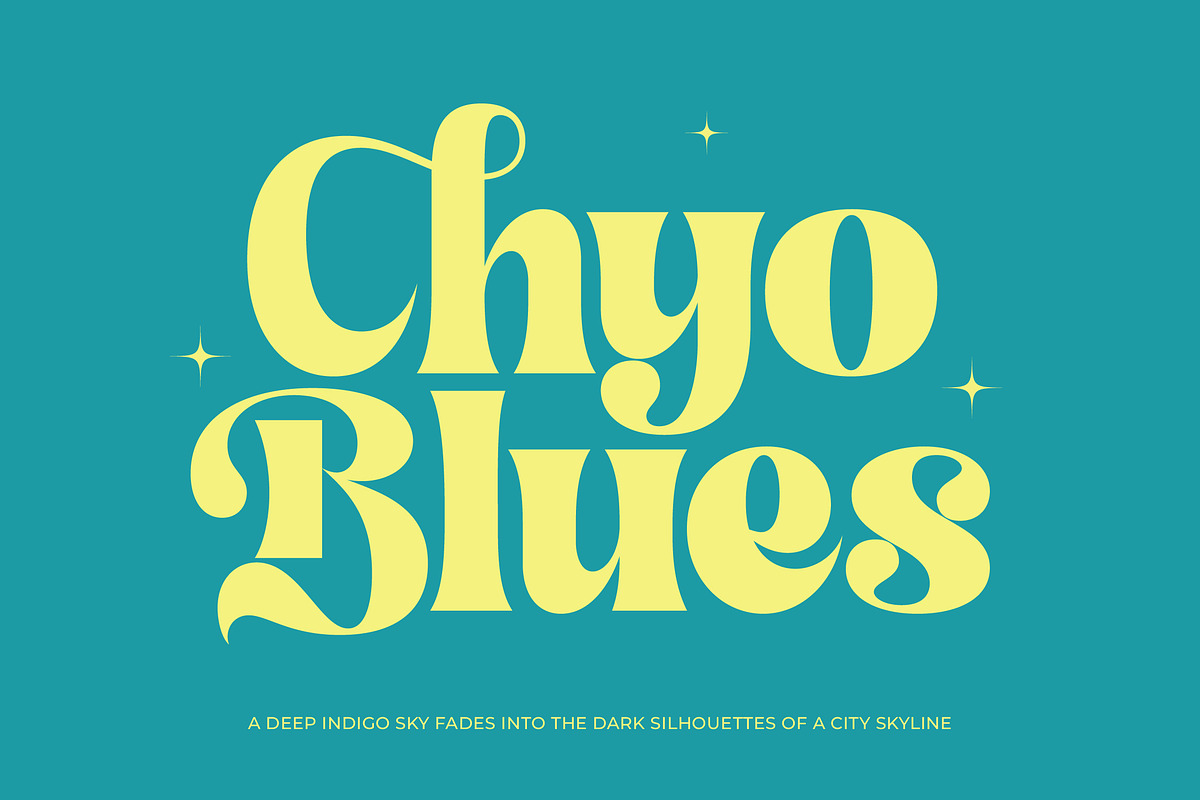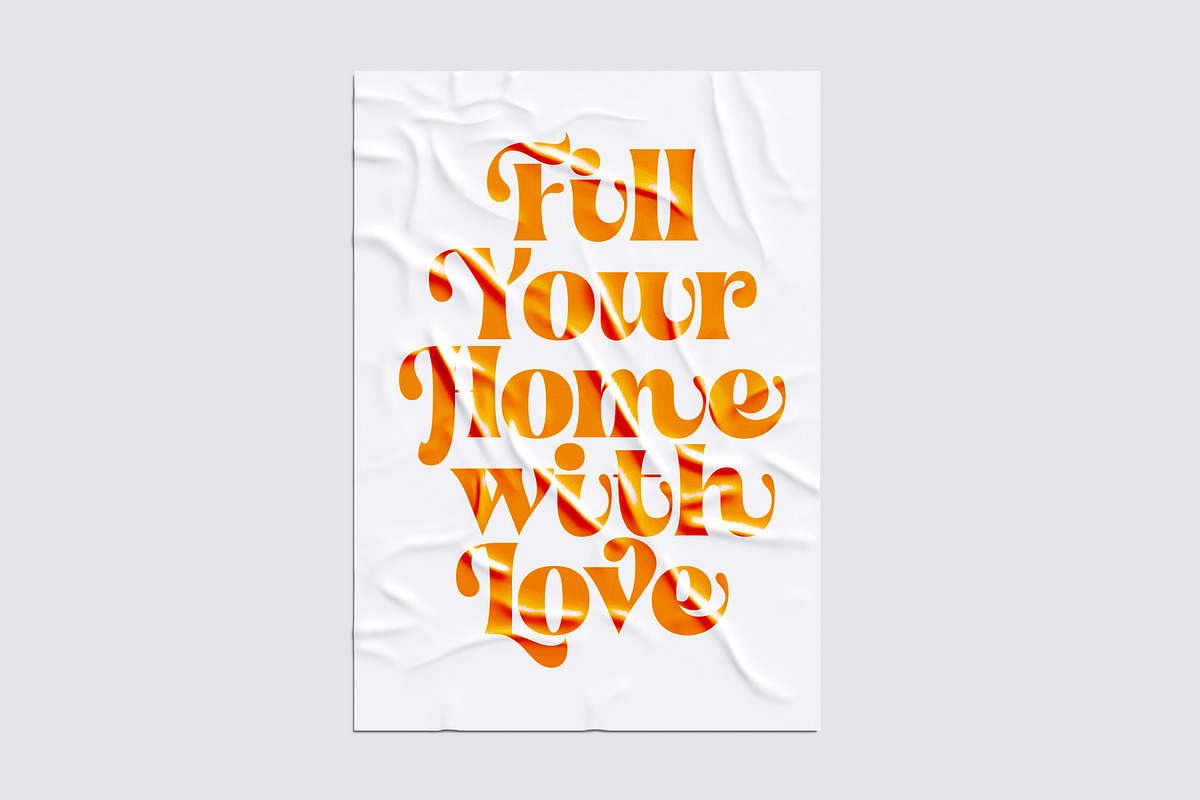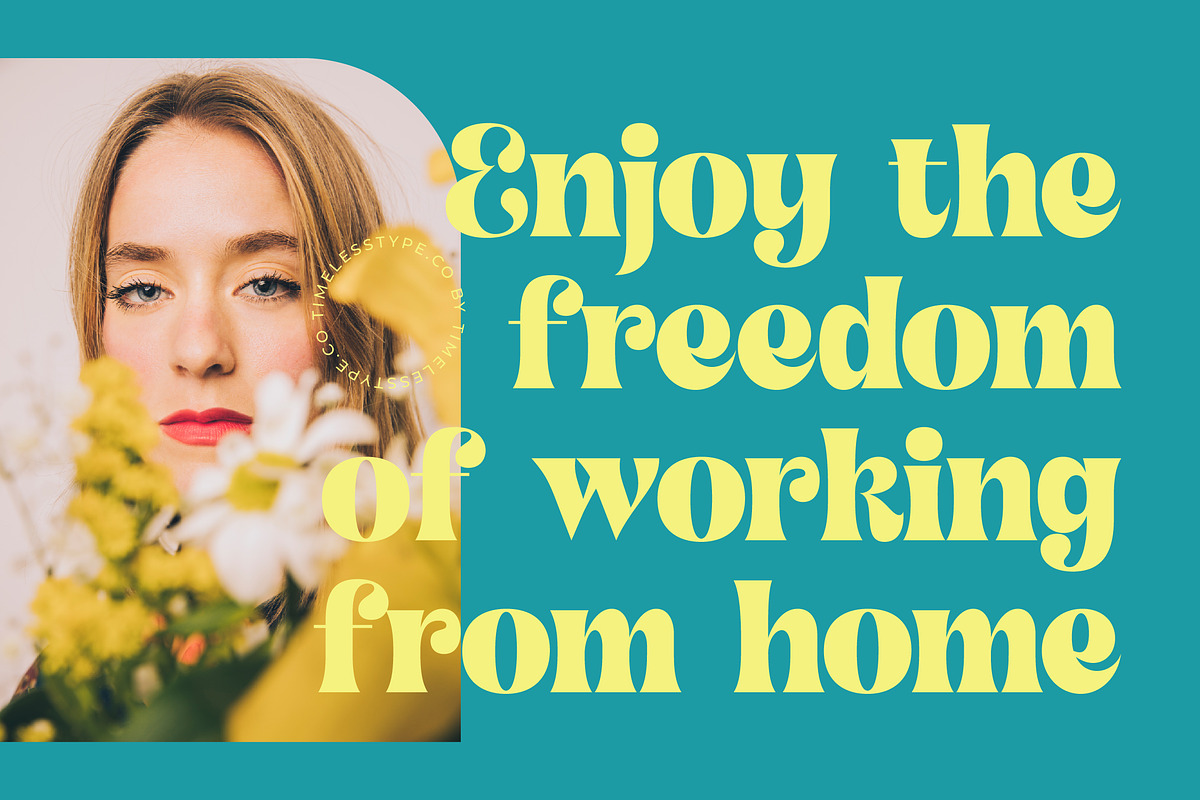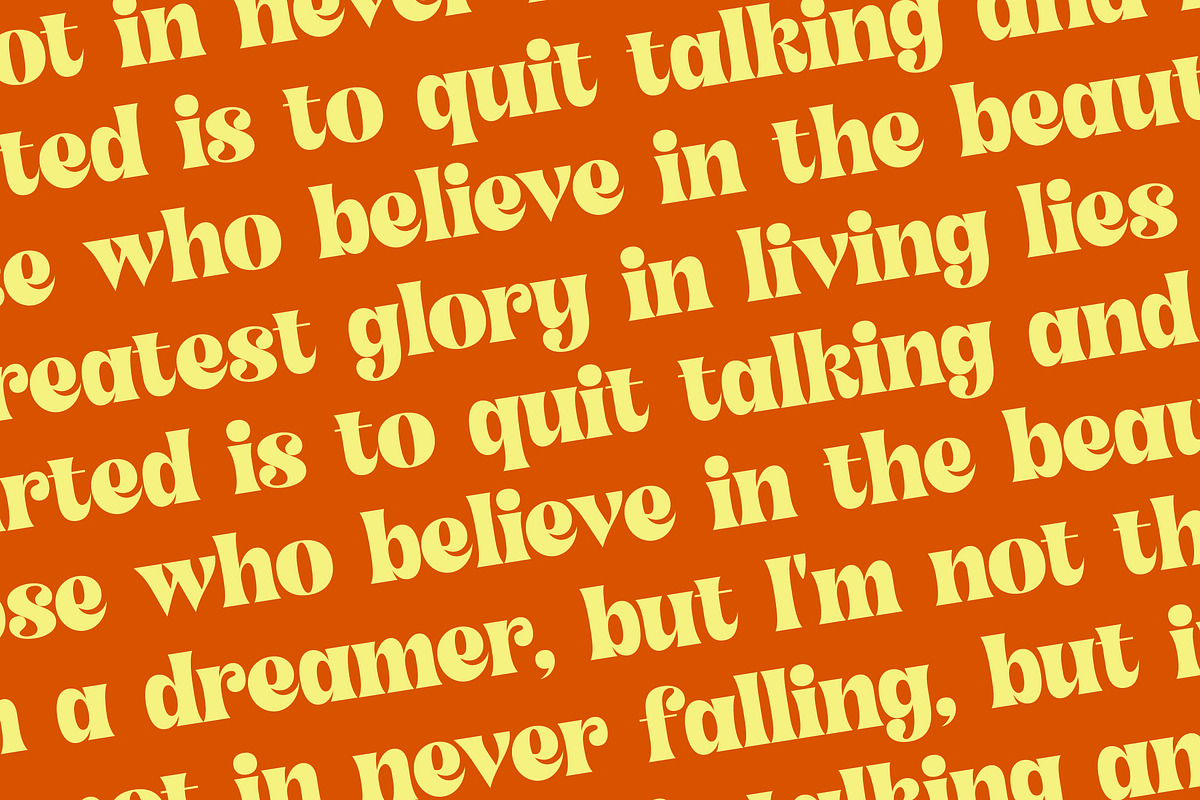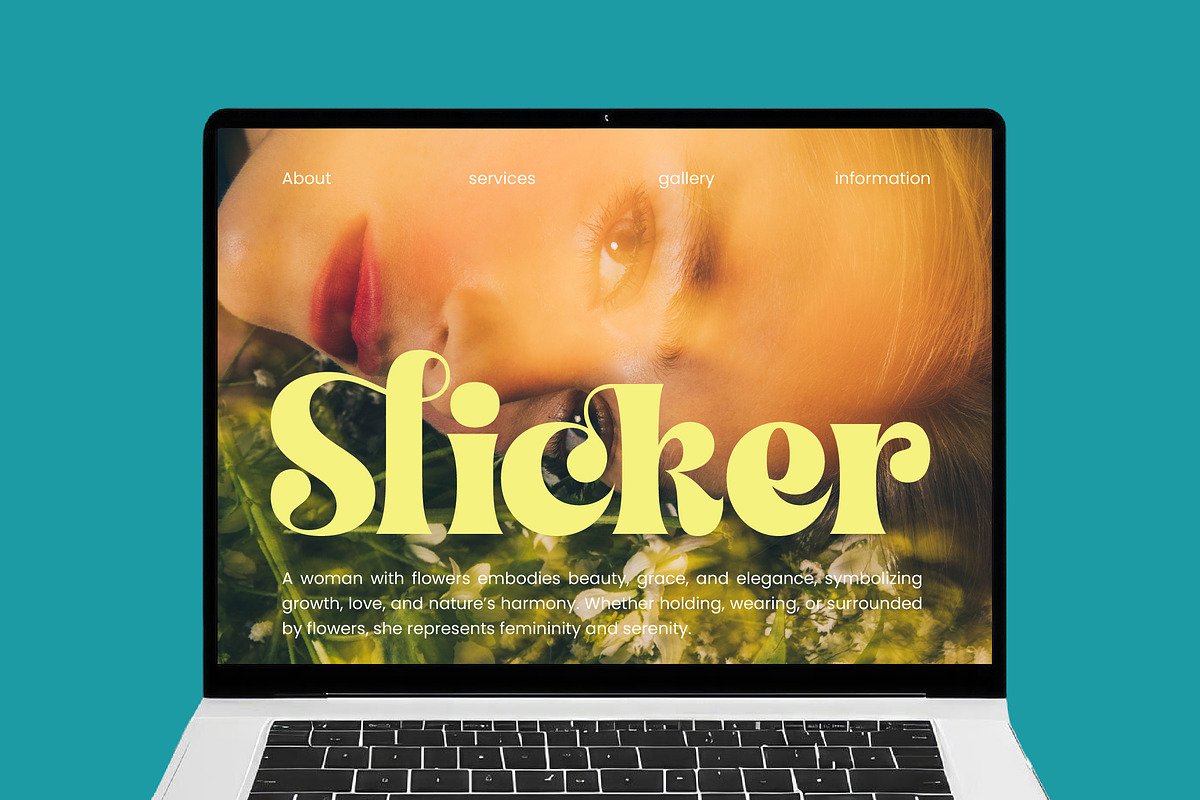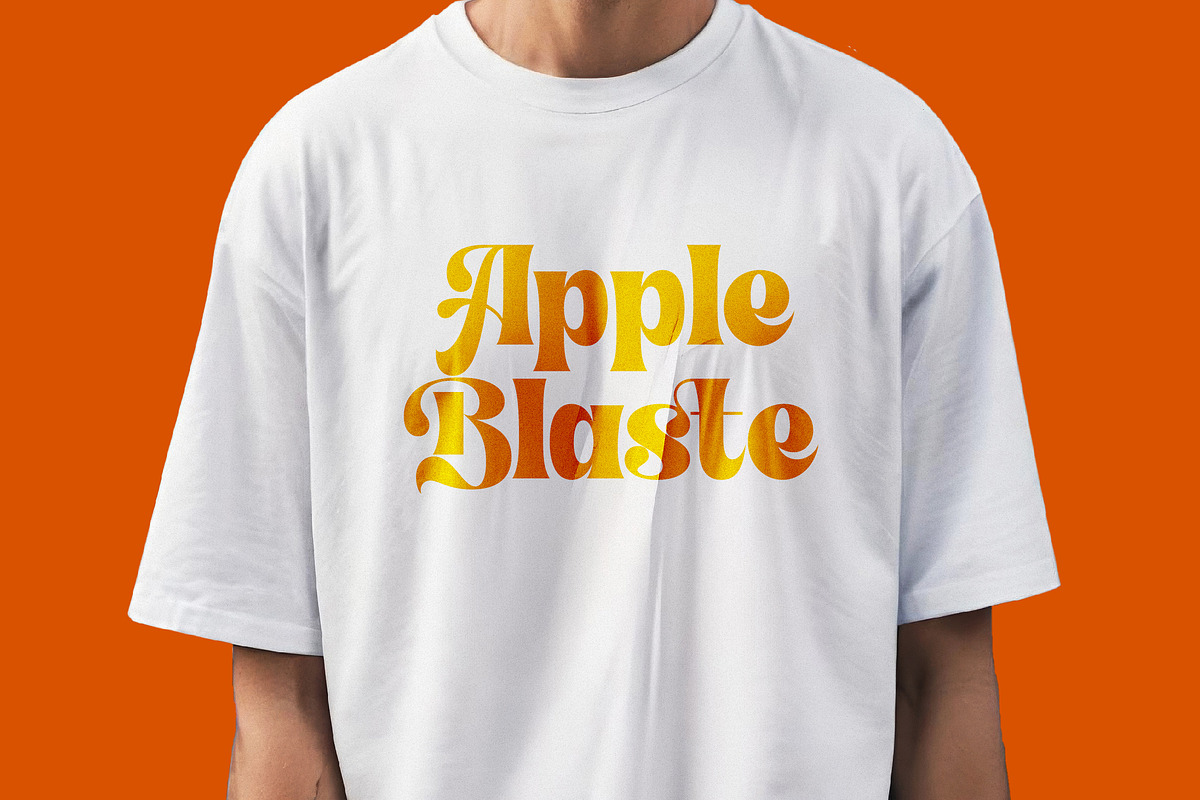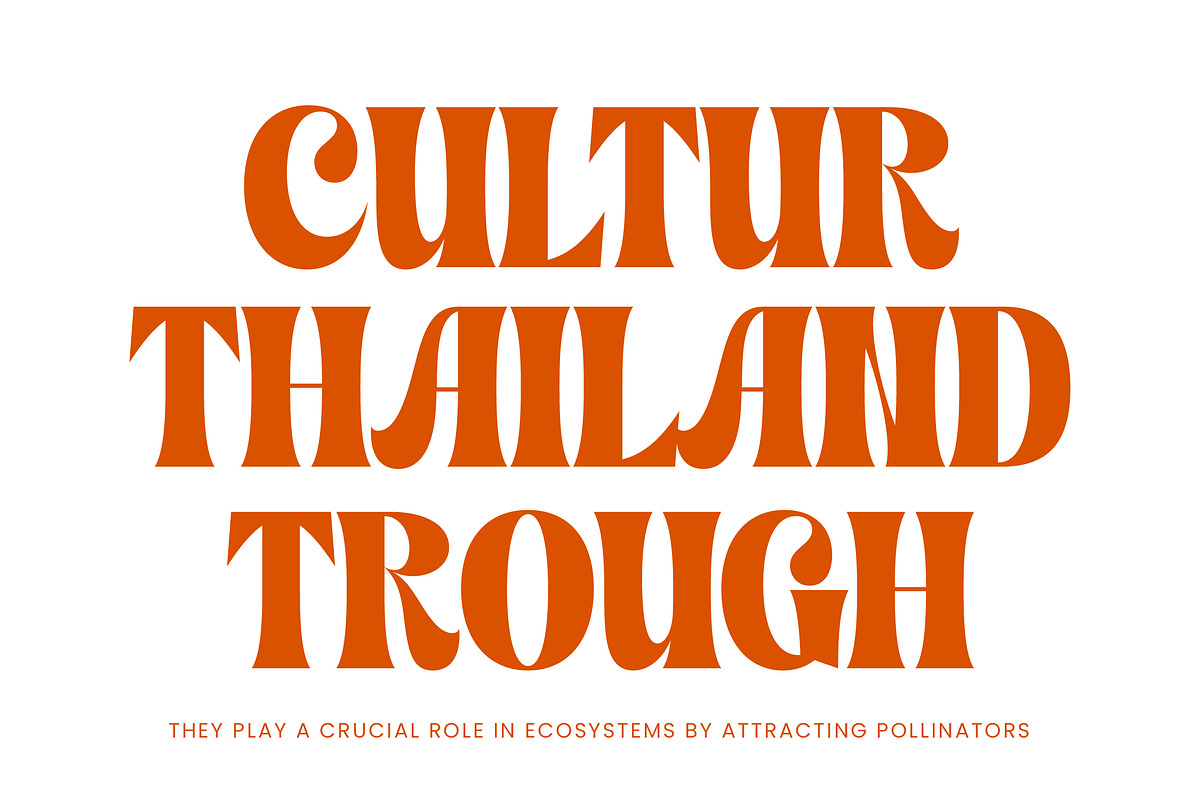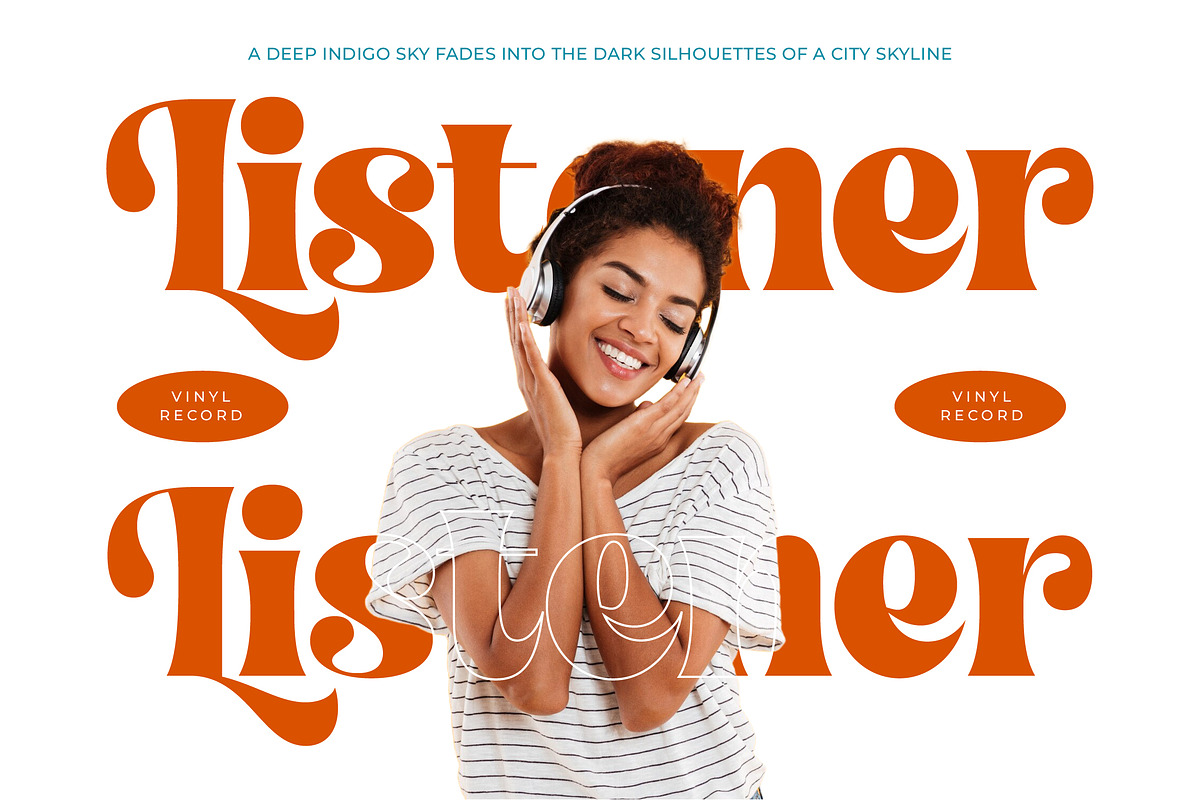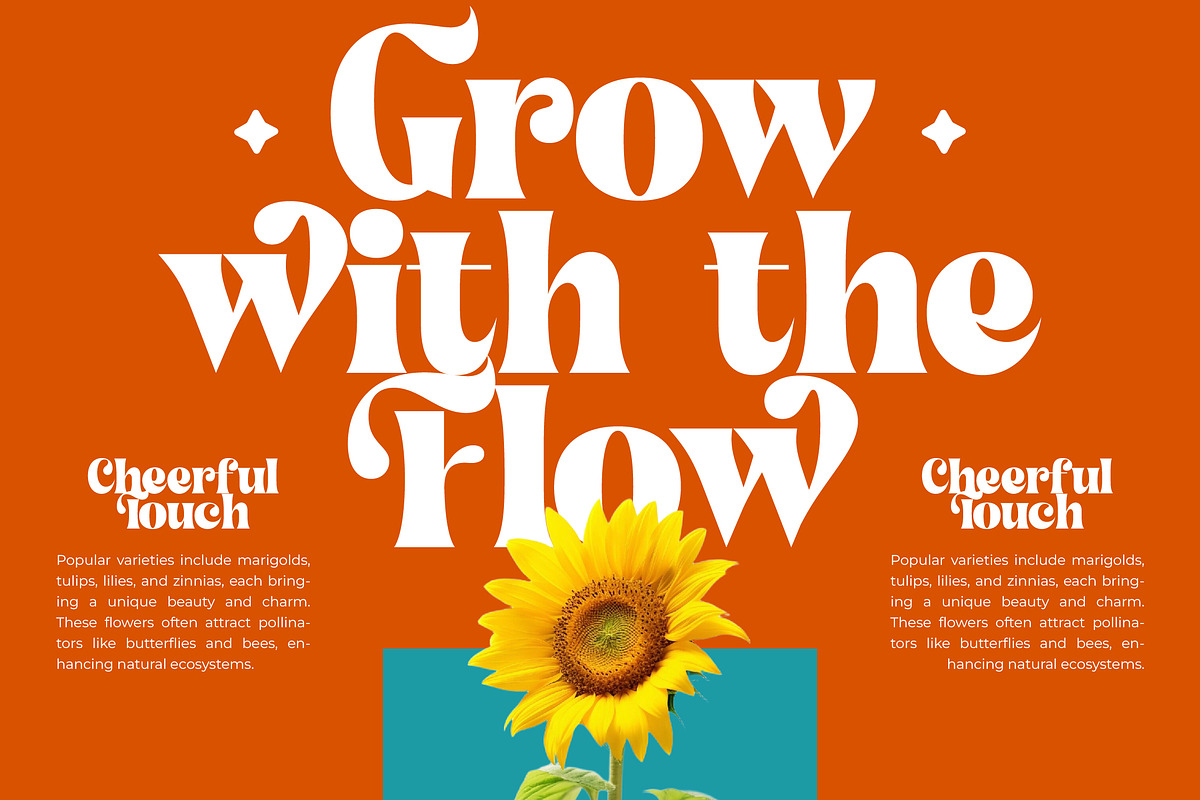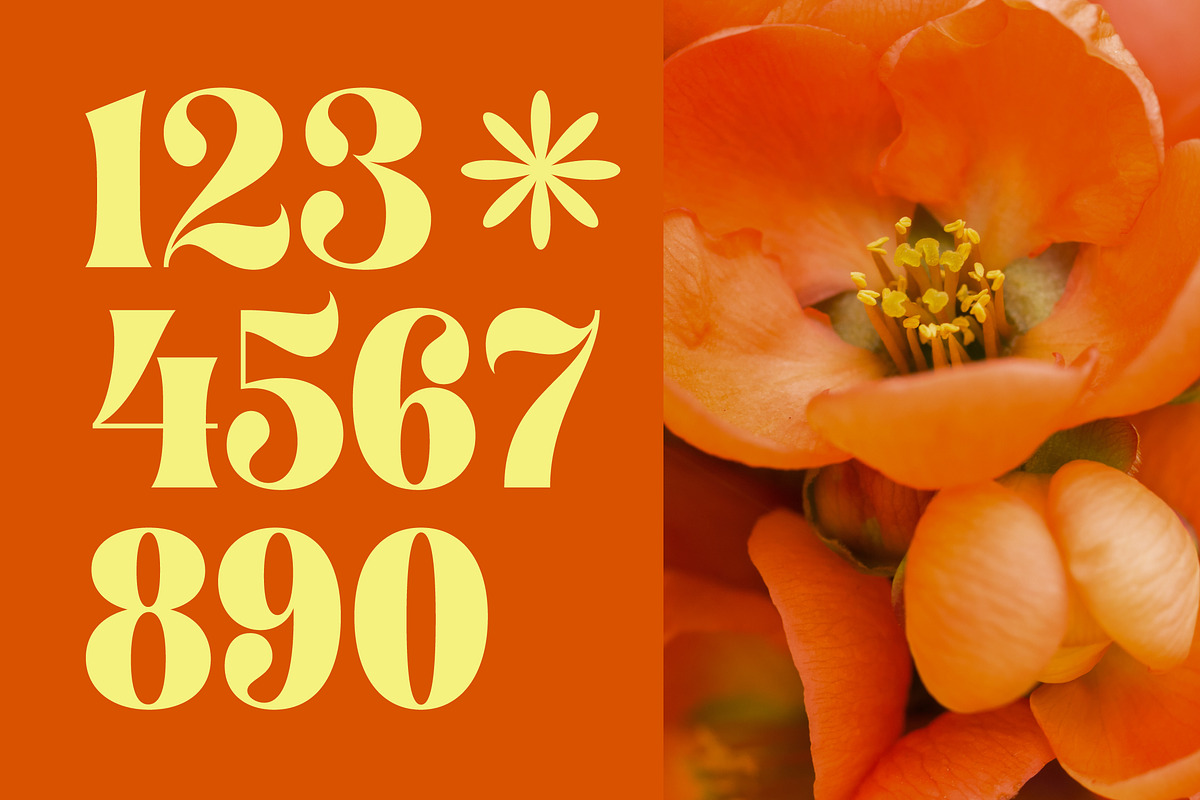
Shyne Roska Groovy Retro Serif
Elevate your design projects with the soulful and spirited essence of Shyne Roska, a typeface that dances between vintage nostalgia and contemporary flair. This font captures a sun-drenched aesthetic that instantly warms the heart and catches the eye with its expressive curves and bold presence.
Drawing inspiration from the psychedelic movements of the late 1960s and the groovy typography of the 1970s, this typeface mimics the organic flow of blooming flowers. It translates the rhythmic energy of retro posters into a sophisticated digital format perfect for today's high-end aesthetics and creative storytelling.
Every glyph in this modern serif display is meticulously crafted to offer a sense of luxury typography while maintaining a playful, approachable spirit. The high-contrast serif strokes provide a sharp, clean look that ensures maximum branding impact whenever it is used as a centerpiece editorial font.
Aligning perfectly with the current modern serif trend, this typeface answers the growing demand for editorial display fonts that prioritize personality over minimalism. It stands at the forefront of character-driven typography, allowing designers to break away from sterile layouts and embrace bold, expressive visual communication.
This versatile typeface is the ultimate choice for high-impact logo design and comprehensive branding identity systems that need to stand out from the crowd. From high-fashion editorial layouts to boutique product packaging, and from elegant wedding invitations to trendy fashion lookbooks, it adapts with effortless grace.
To give you total creative control, the package includes an extensive library of over 60 alternates and 20 unique ligatures to customize every word. It also features beautiful swashes and full multilingual support with a wide range of international characters, ensuring your message reaches a global audience.
- Ligature 20 Alternate 60